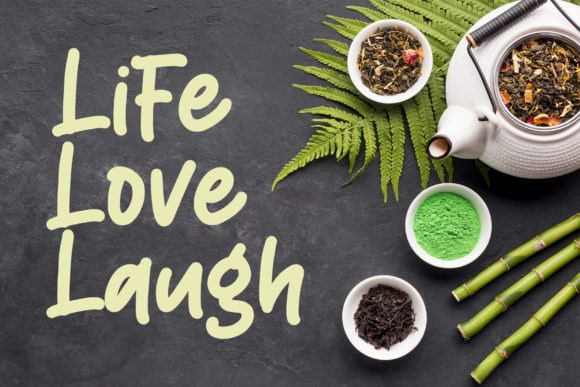
Matcha Latte Typeface
Matcha Latte feels equally charming and friendly. This stunning handwritten font is a stylish homage to classic calligraphy. It features a varying baseline, smooth lines, gorgeous glyphs and stunning alternates. Fall in love with its authentic feel and use it to create gorgeous wedding invitations, beautiful stationary art, eye-catching social media posts, and cute greeting cards.